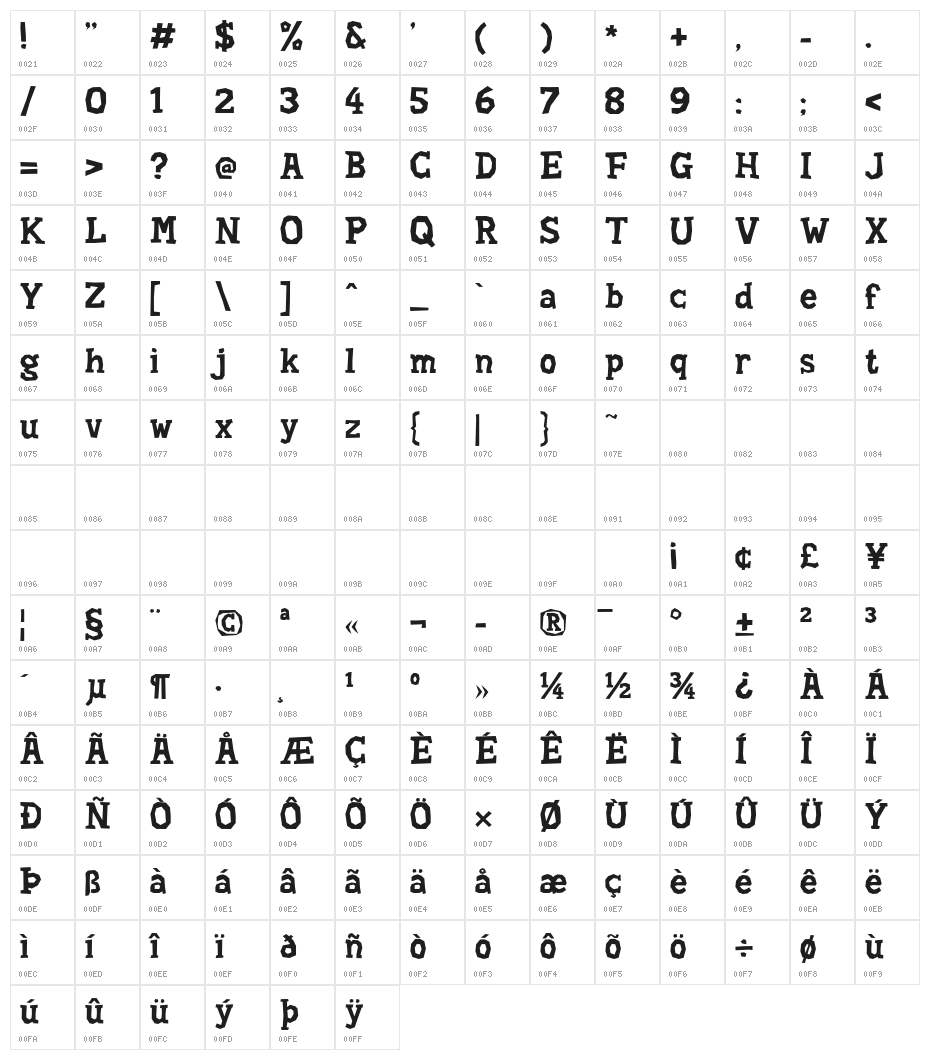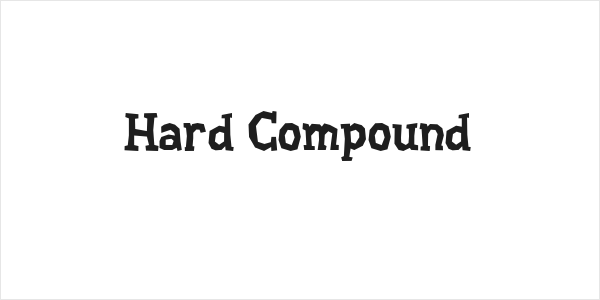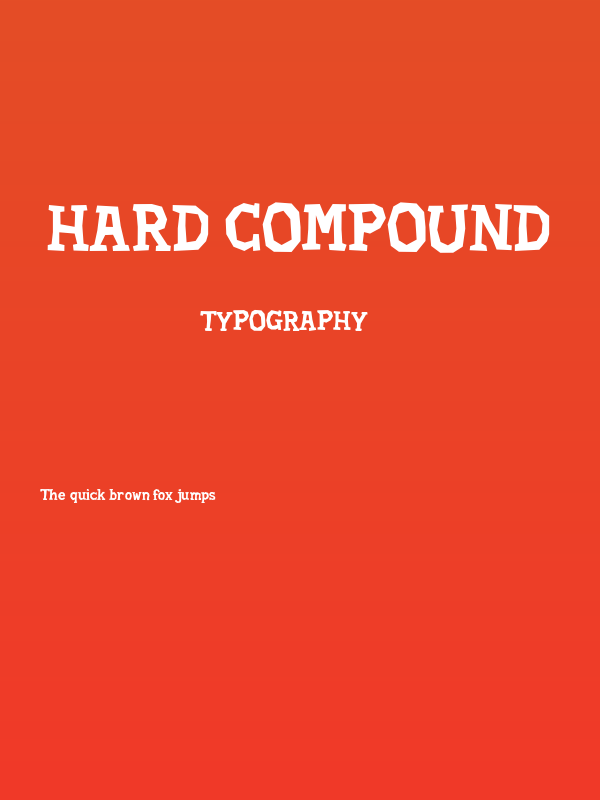
Hard Compound Font
| Categorie | Crazy |
| Stile generale | Modern, Industrial |
| Caso d'uso | Headlines, Logos, Branding |
| Progetti proposti | Ideal for projects requiring a strong and industrial look, such as branding for construction companies, outdoor gear, or sports teams. |